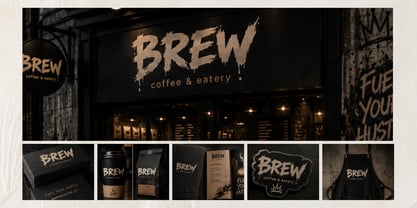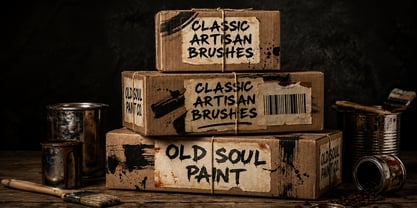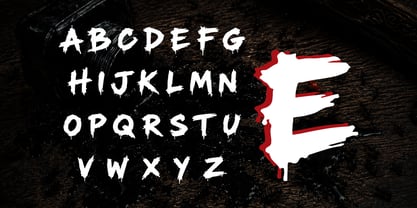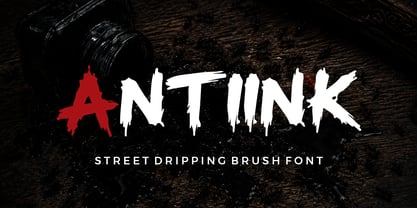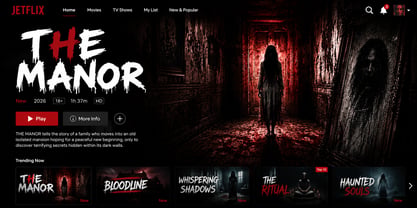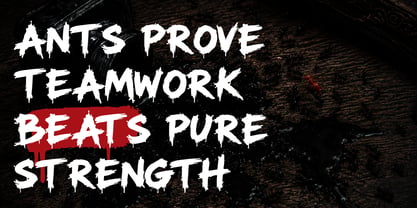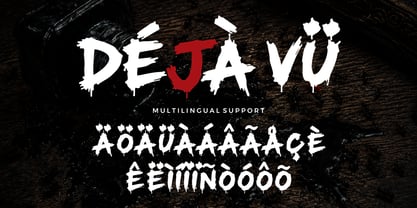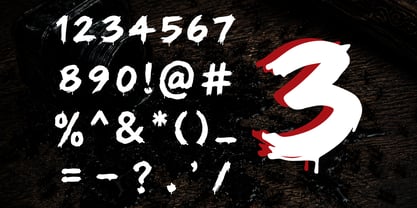
Antiink
Antiink is a bold street dripping brush font inspired by underground graffiti culture, expressive handstyle lettering, rebellious street aesthetics, and raw urban creativity. Featuring aggressive brush strokes, dripping ink details, and handcrafted textures, Antiink delivers powerful typography filled with authentic street energy and strong visual attitude.
Designed for creators who want typography that feels loud, expressive, and visually impactful, Antiink transforms ordinary text into bold urban compositions inspired by graffiti walls, underground art movements, punk visuals, skate culture, and modern streetwear branding.
The rough handcrafted texture gives every character natural movement and emotional intensity, while the dripping forms create gritty visual atmosphere inspired by real spray-paint art and urban tagging culture. The result is a display font that feels raw, rebellious, and highly memorable.
Antiink combines bold readability with expressive brush aesthetics, making it highly suitable for large headlines, branding systems, promotional graphics, and edgy creative visuals. Whether used for digital media or print projects, the font maintains strong personality and authentic handcrafted style.
Features
• Uppercase Characters
• Lowercase Characters
• Numbers & Punctuation
• Multilingual Support
• Dripping Brush Style
• Rough Handcrafted Texture
• Urban Graffiti Aesthetic
• Expressive Brush Letterforms
• Bold Display Character
Antiink works exceptionally well for:
streetwear branding, graffiti posters, hip hop visuals, music artwork, gaming graphics, esports branding, YouTube thumbnails, social media campaigns, tattoo-inspired designs, skateboard graphics, underground merchandise, urban packaging, alternative branding, concert promotions, and creative display typography.
Inspired by underground street culture and expressive graffiti aesthetics, Antiink captures the energy of urban creativity through rough brush textures and dripping details. Every letter was carefully designed to feel organic, emotional, and visually dynamic while still maintaining readability for modern display purposes.
The font performs beautifully in oversized titles, layered typography compositions, dark urban layouts, grunge-inspired graphics, spray-paint visuals, and rebellious branding systems. Its aggressive handcrafted style instantly creates bold visual identity with authentic underground atmosphere.
Antiink is highly suitable for creators who want typography with:
• raw brush movement
• expressive dripping details
• edgy urban personality
• handcrafted artistic texture
• strong visual impact
The dripping effects create movement and energy that help typography feel more alive and emotionally expressive. Combined with rough brush edges and imperfect handmade forms, Antiink delivers a natural street-inspired appearance that feels authentic and artistic.
The multilingual support allows broader creative flexibility across different languages, while punctuation and numeric characters complete typography systems for professional branding and promotional use.
Whether paired with monochrome aesthetics, dark cinematic visuals, neon urban colors, distressed textures, or layered graffiti compositions, Antiink maintains strong rebellious personality and underground visual identity.
This font works beautifully for:
• music festival posters
• underground album covers
• esports graphics
• gaming visuals
• tattoo branding
• alternative apparel
• urban merchandise
• social media headlines
• edgy promotional campaigns
• modern graffiti artwork
Inspired by graffiti culture, underground music movements, skateboarding visuals, street photography aesthetics, and rebellious creative expression, Antiink transforms typography into powerful visual storytelling with handcrafted urban character.
Its rough brush movement and dripping textures create typography that feels energetic, emotional, and visually bold. The imperfect handmade structure helps every word appear more expressive and memorable while still remaining versatile for modern creative applications.
Antiink is perfect for designers seeking typography with aggressive brush energy, raw street aesthetics, and authentic urban personality. The font creates strong emotional impact while maintaining stylish modern display readability suitable for contemporary visual culture.
From edgy branding and underground campaigns to gaming visuals and music artwork, Antiink delivers bold handcrafted typography designed to stand out with confidence, rebellion, and authentic street-inspired energy.